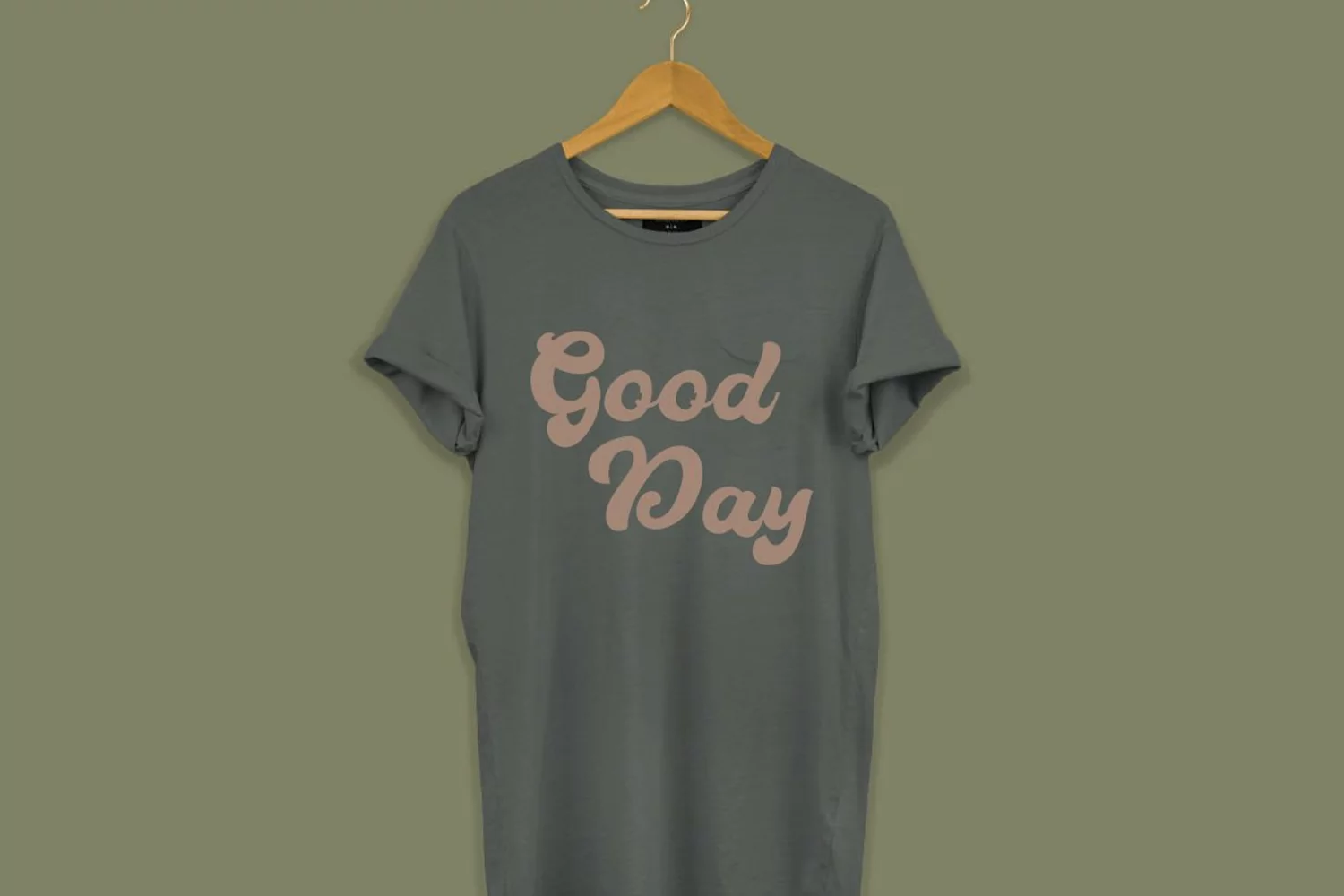
Haglos - Bold Script Font
Suthen Script was very inspired from modern vintage and retro style
All characters have an imperfect shape that gives a natural look in design. It easily cooperating together and perfect for creating the traditional style logos, labels, package design, lettering for t-shirts and much others.